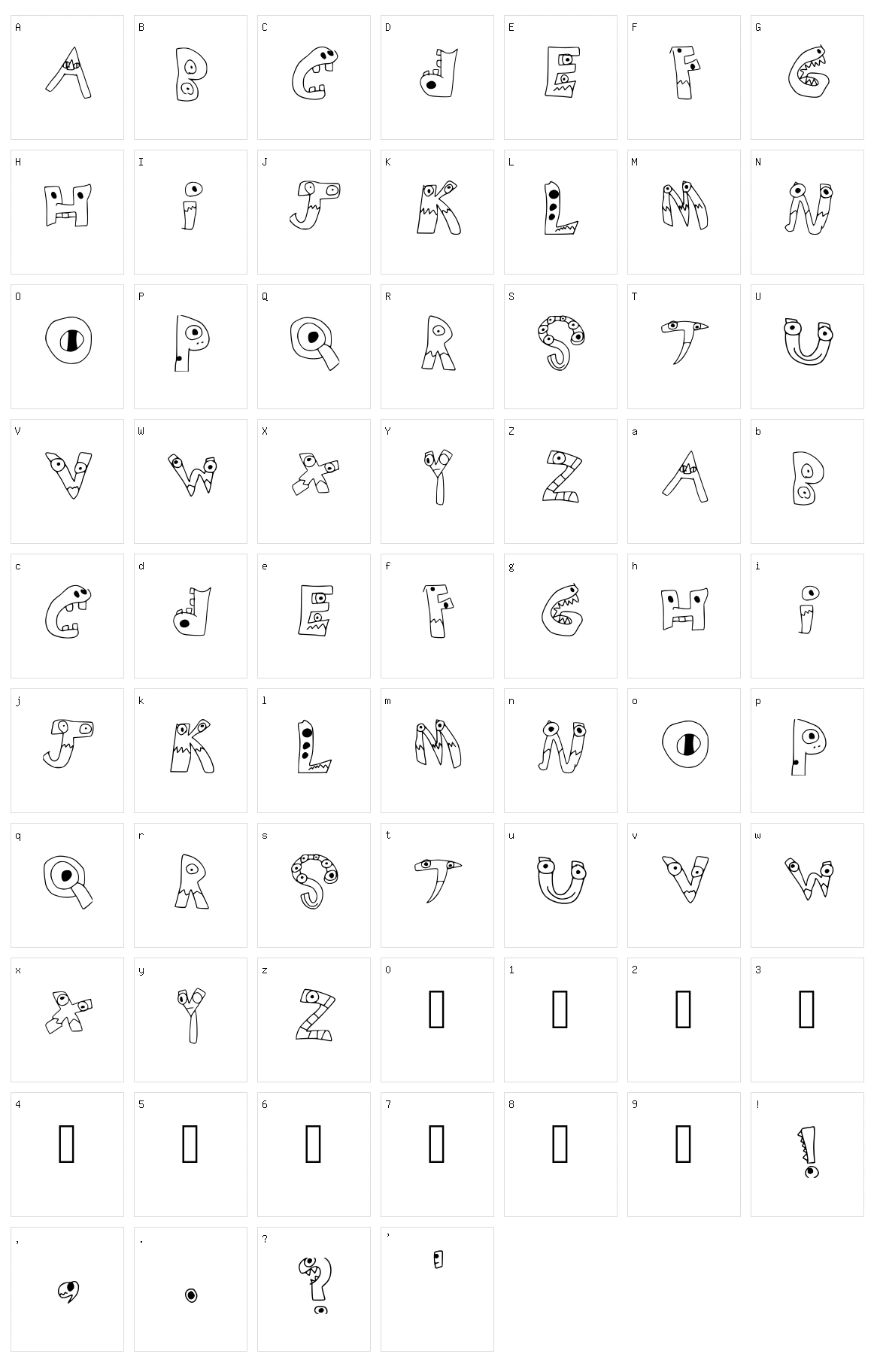
The free font Monsterfont is carefully designed by samalama, showcasing a thoughtful balance of creativity and usability and falls under the Cartoon font style. When you download the ZIP file, it contains only 15.89 KB of font files, making it lightweight and quick to download. Please review the license details below to understand permitted usage and distribution rights. If license information is not available, we recommend using this font for personal projects only or contacting the author directly for commercial usage permissions.